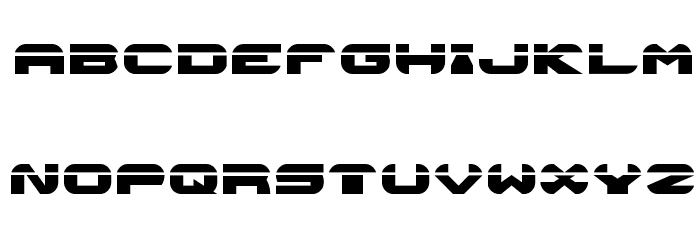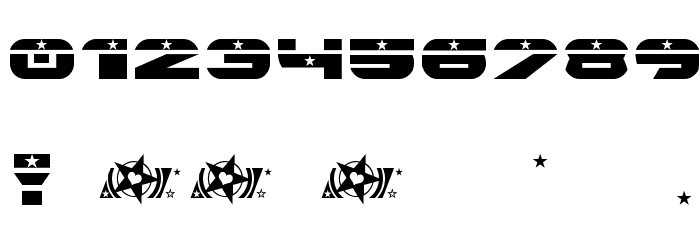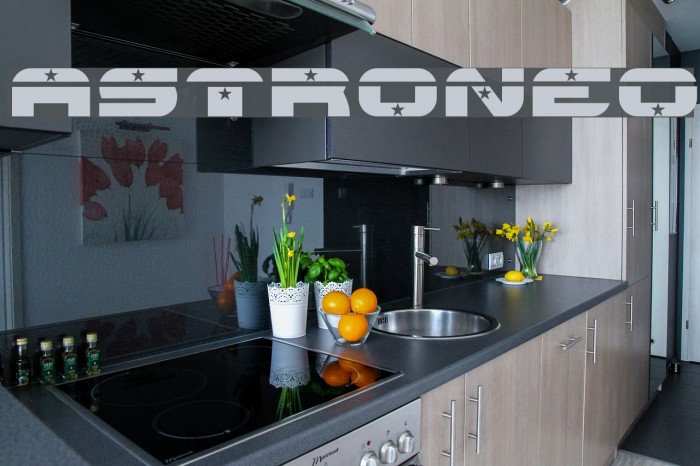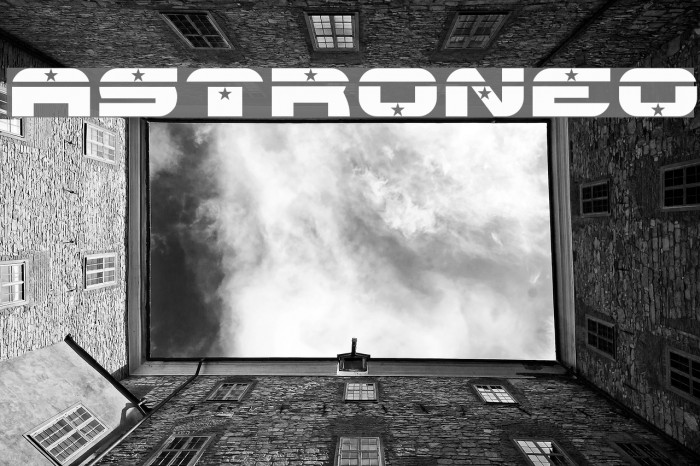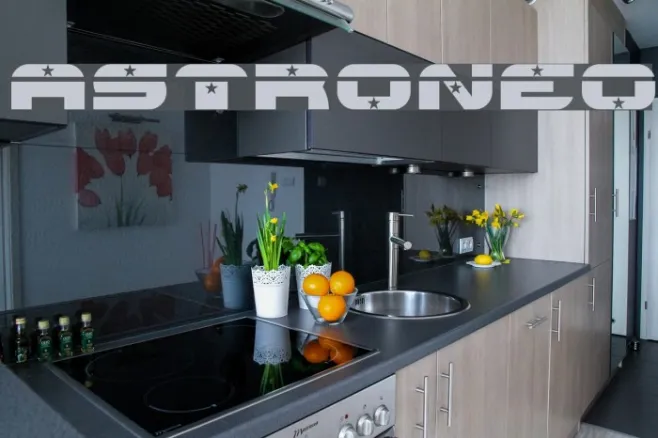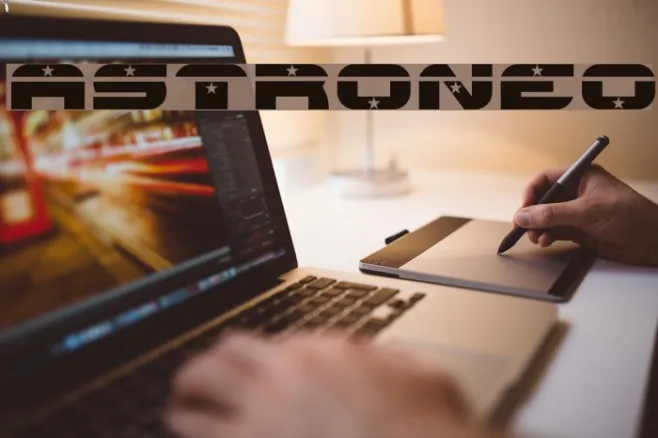
ASTRONEO Font
This font features a futuristic and bold design, characterized by its geometric shapes and star motifs embedded within the characters. The uppercase letters are uniform in height, with a consistent width that gives a solid and structured appearance. The numbers and special characters maintain the same stylistic elements, ensuring a cohesive look across all glyphs. The star elements add a decorative touch, making it suitable for themes related to space or technology. The font's strong lines and unique embellishments make it stand out, ideal for eye-catching designs.
A bold, futuristic font with geometric shapes and star motifs.
- Proposed Projects: Ideal for sci-fi movie posters, tech event branding, space-themed merchandise, and video game titles.
- Overall Style: Futuristic